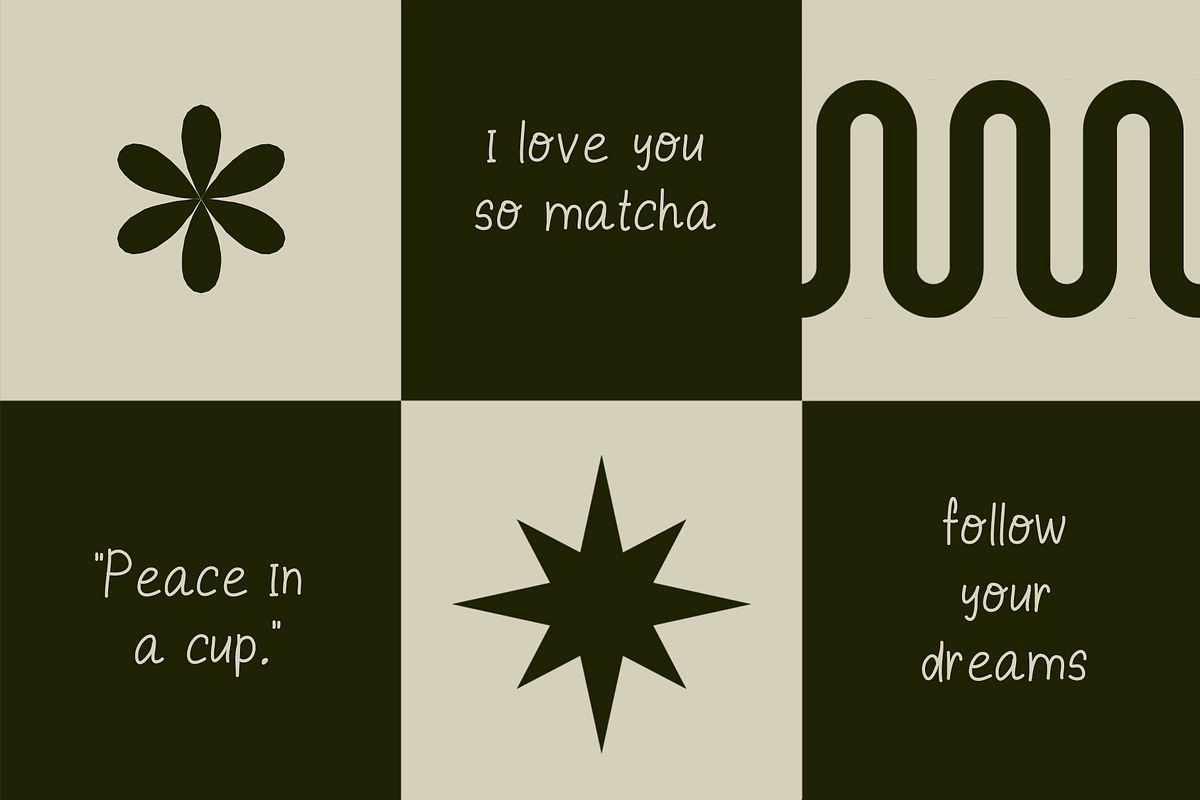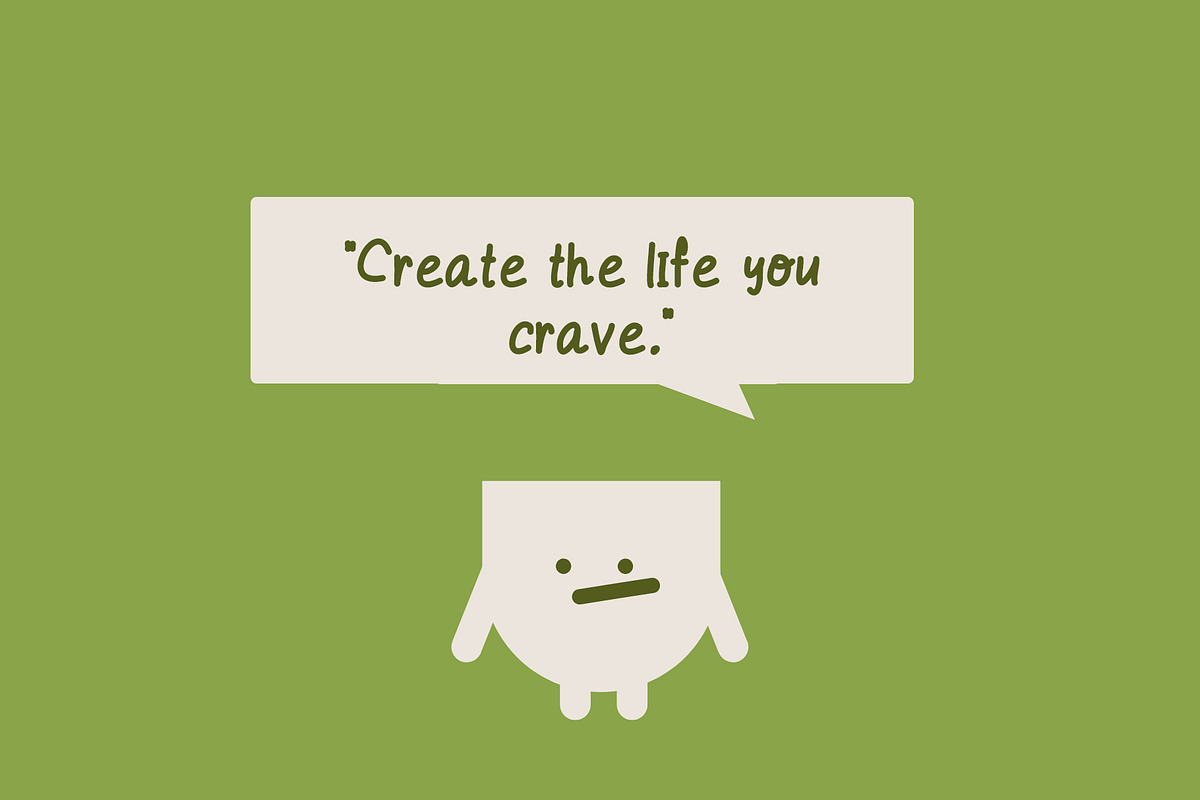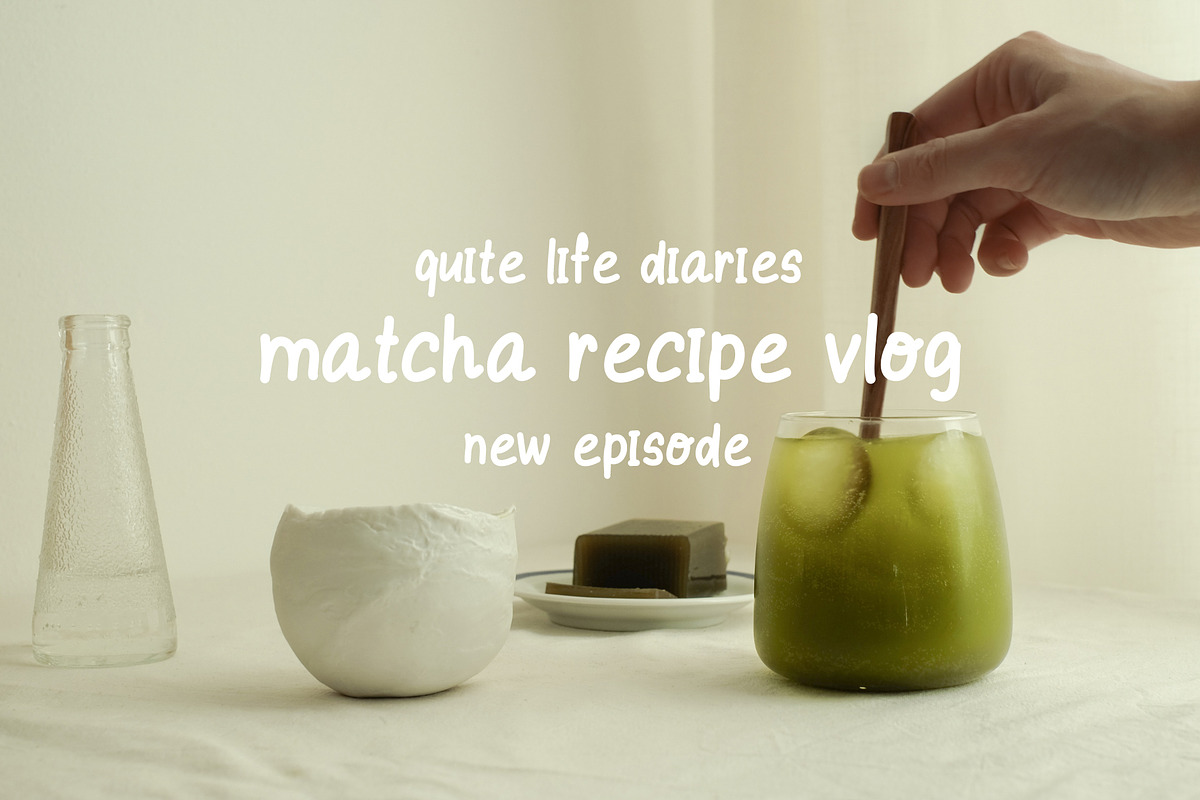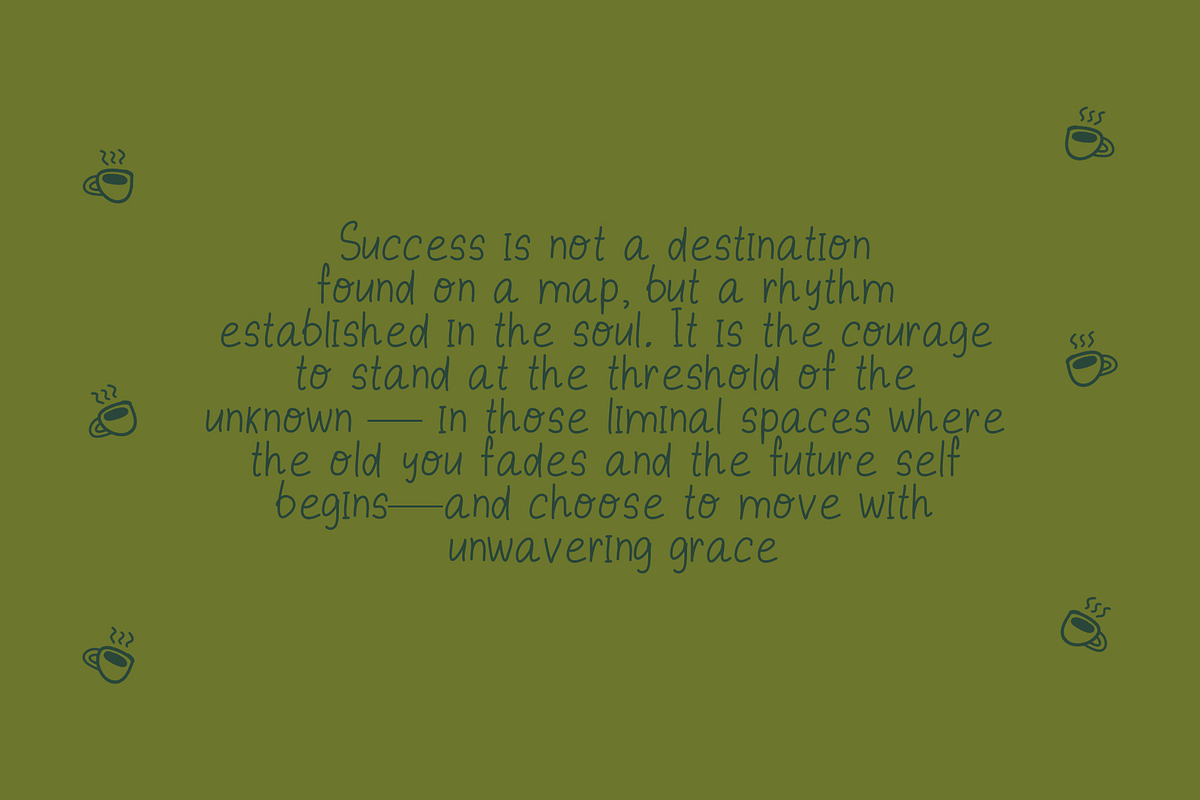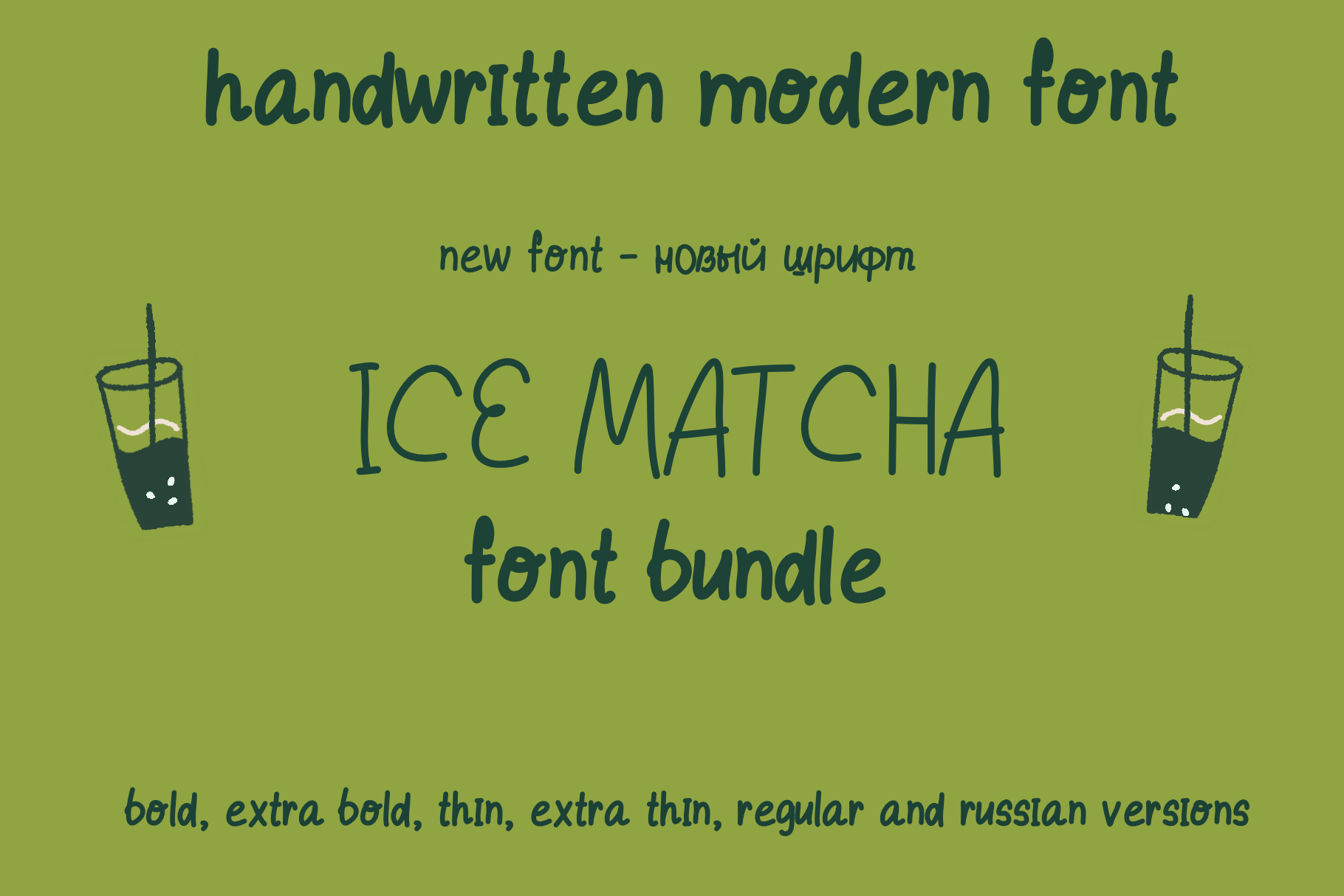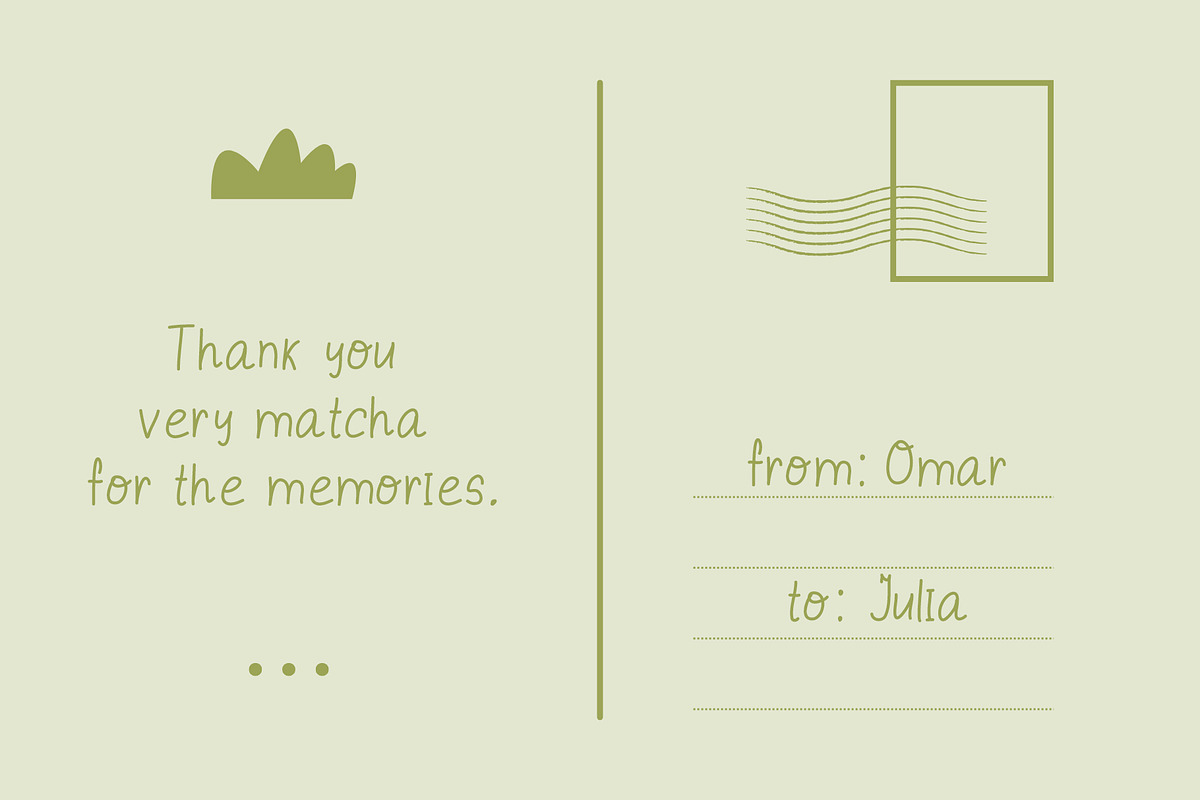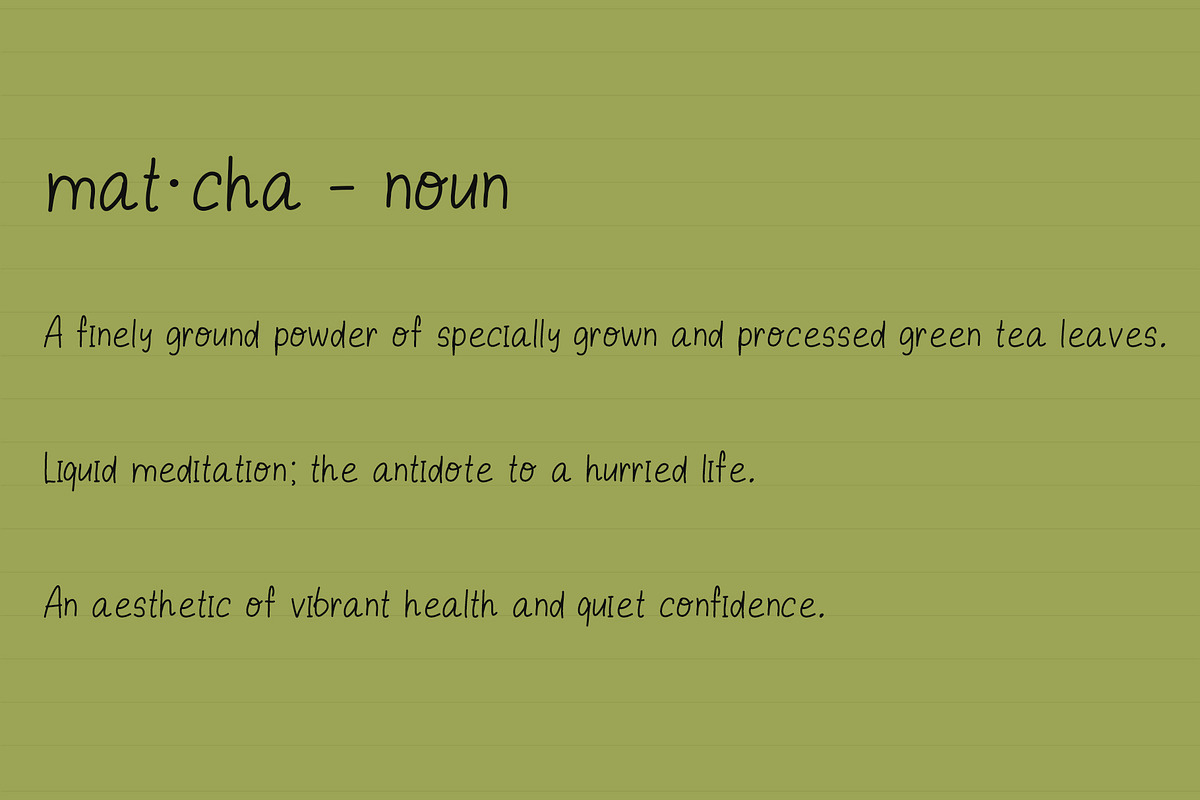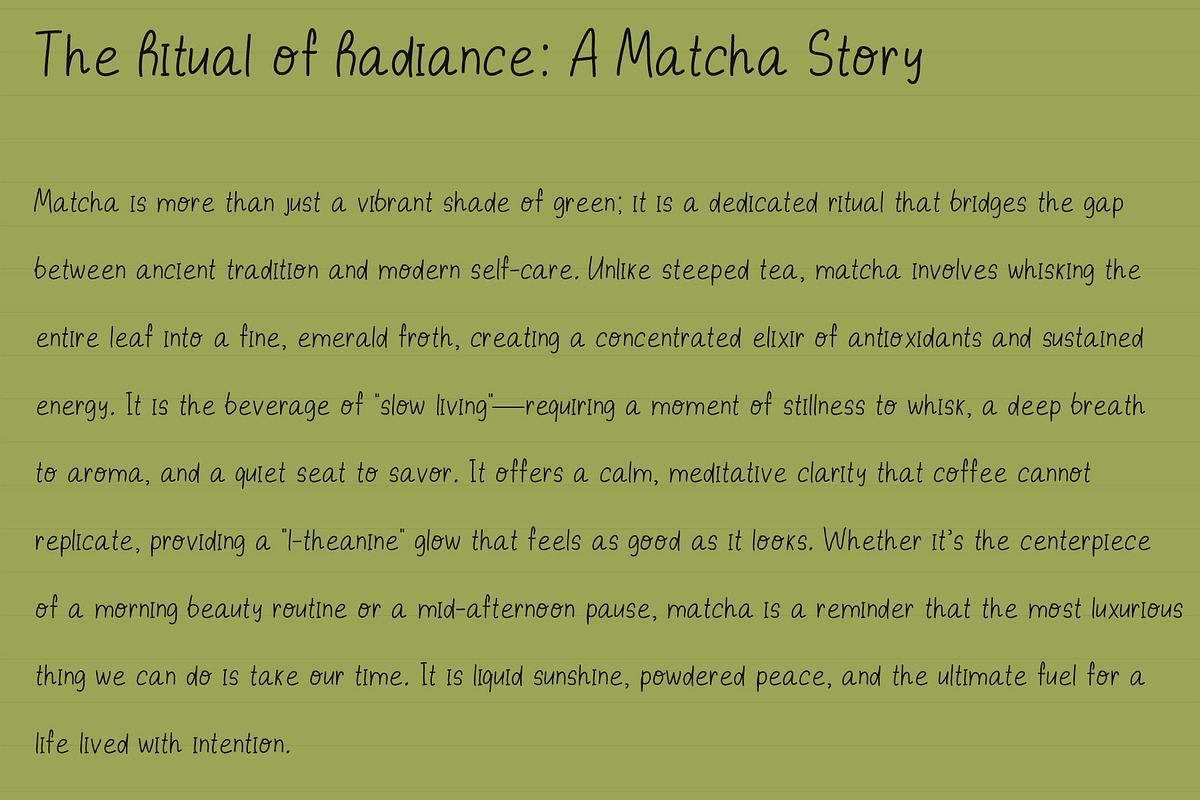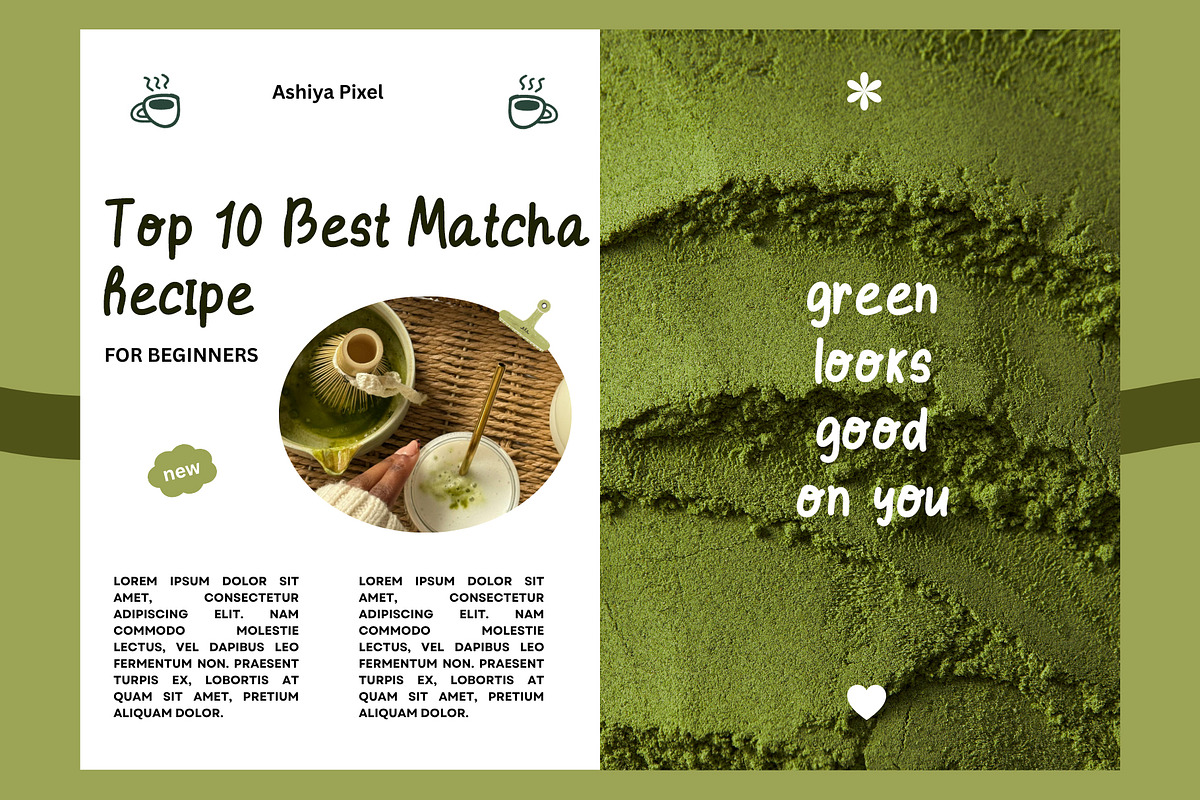
Ice matcha font bundle 6 in 1
Ice Matcha is a playful, hand-drawn font bundle designed for warmth and versatility. Featuring five weights—from delicate Extra Thin to impactful Extra Bold—and full Cyrillic support, it’s the perfect choice for cozy branding, cafe menus, nursery decor, and creative social media graphics. Whether you're designing a whimsical logo or a bold header, this organic sans-serif collection brings an authentic, human touch to every project.